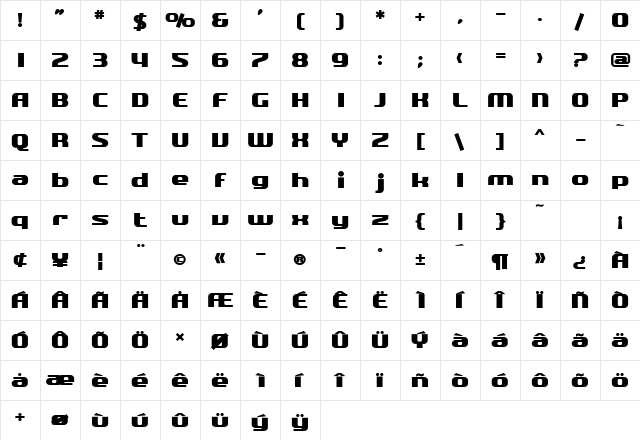
SF Quartzite Bold
Design Context for SF Quartzite Typeface
SF Quartzite takes a measured approach to typography — its balanced proportions and neutral character make it a reliable workhorse for both digital and print work. The heavy weight commands attention and anchors typographic hierarchies.